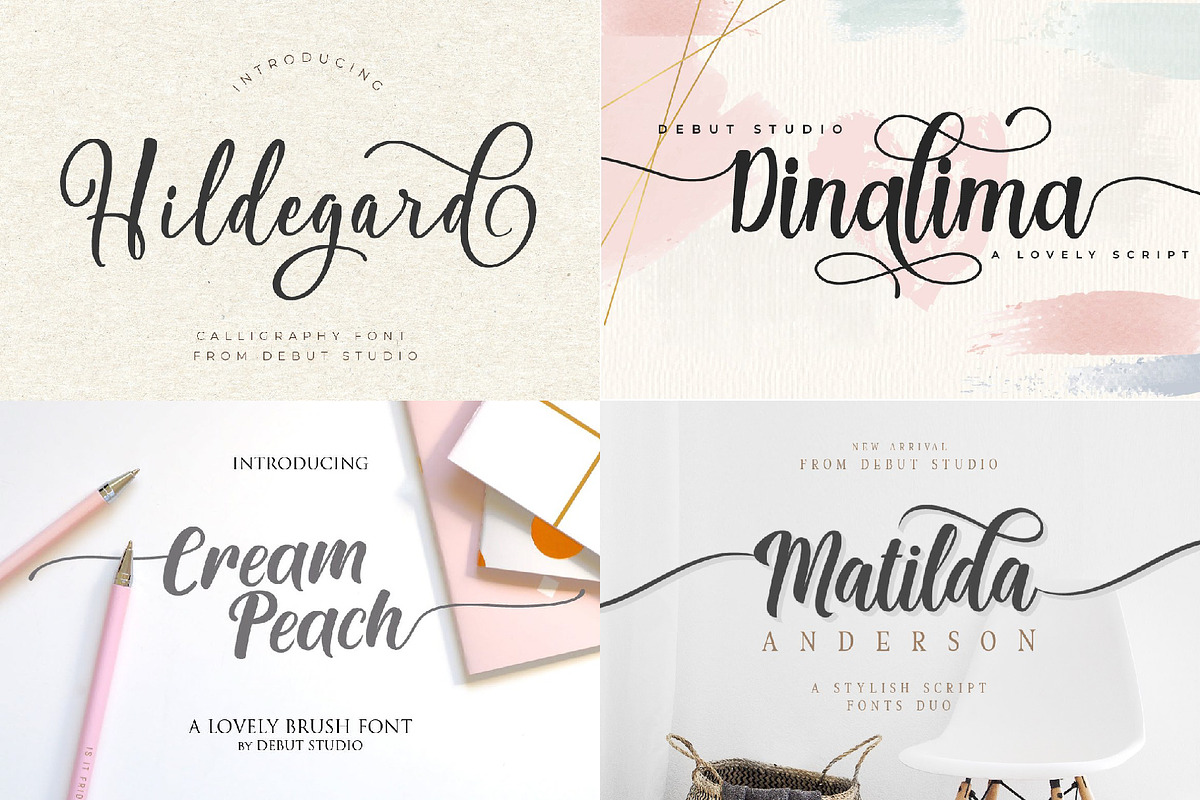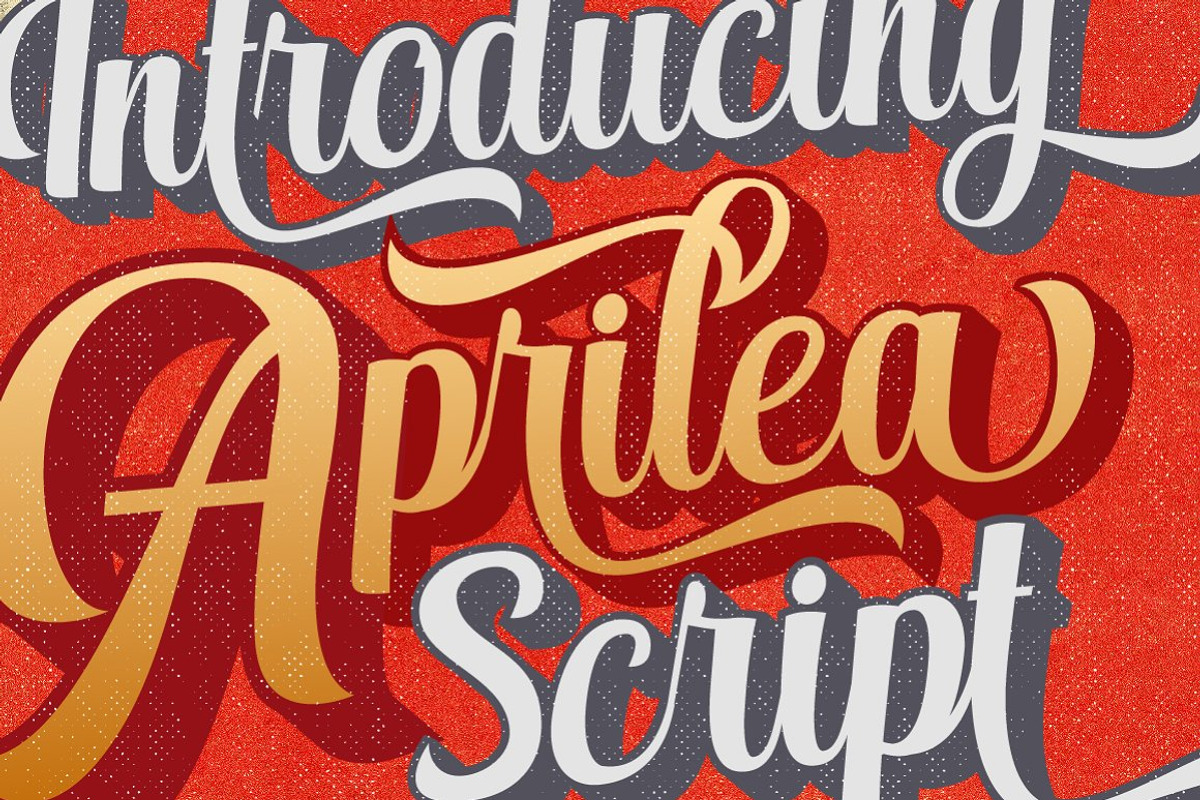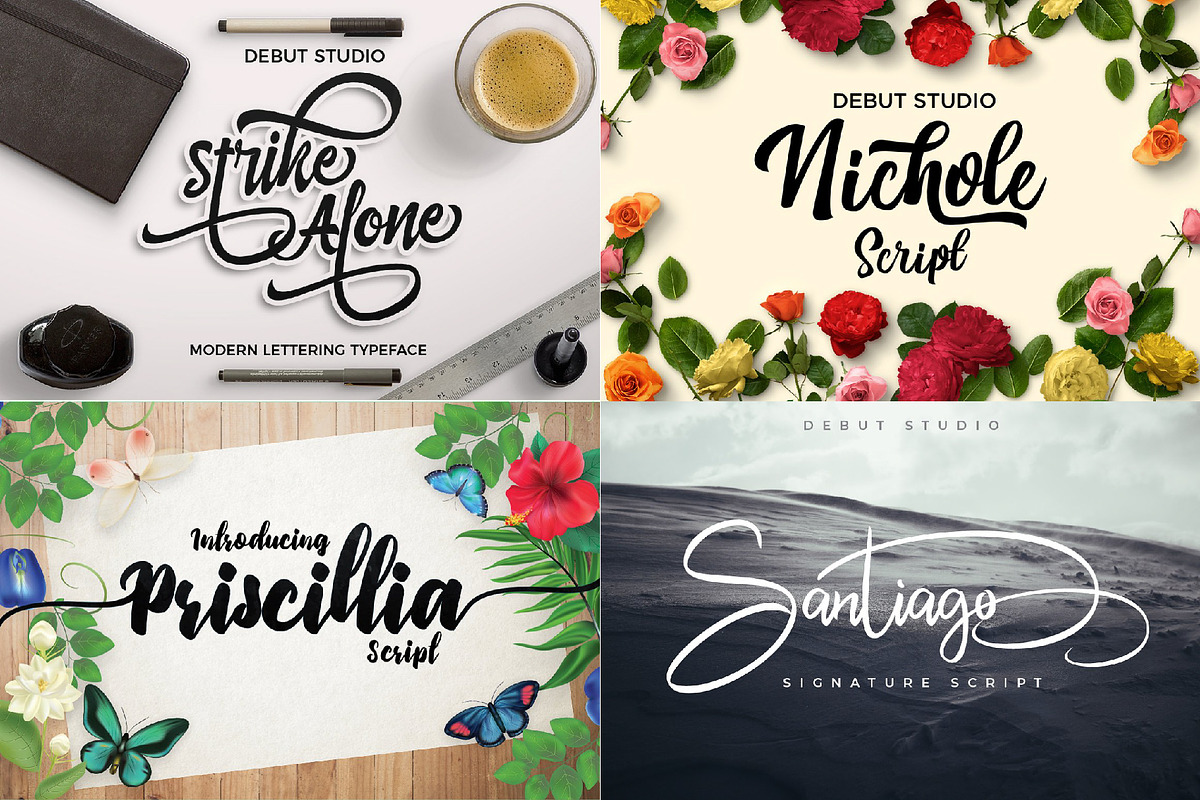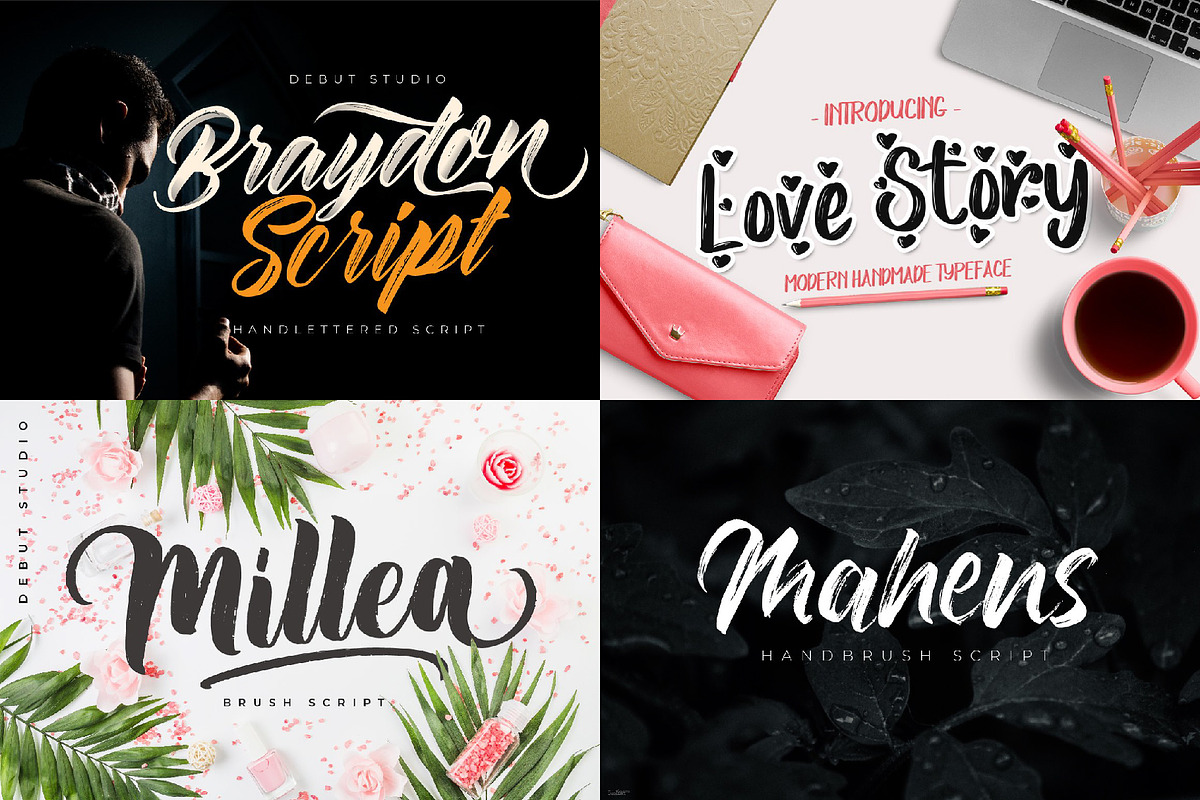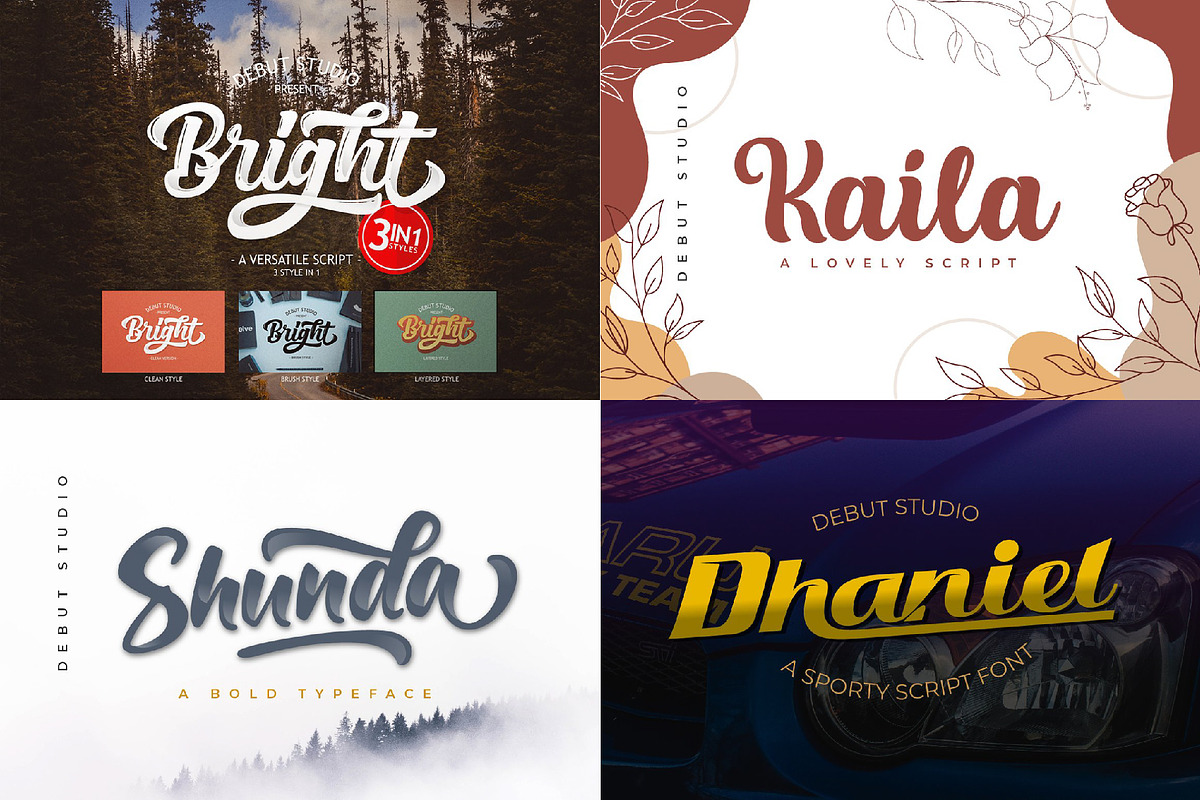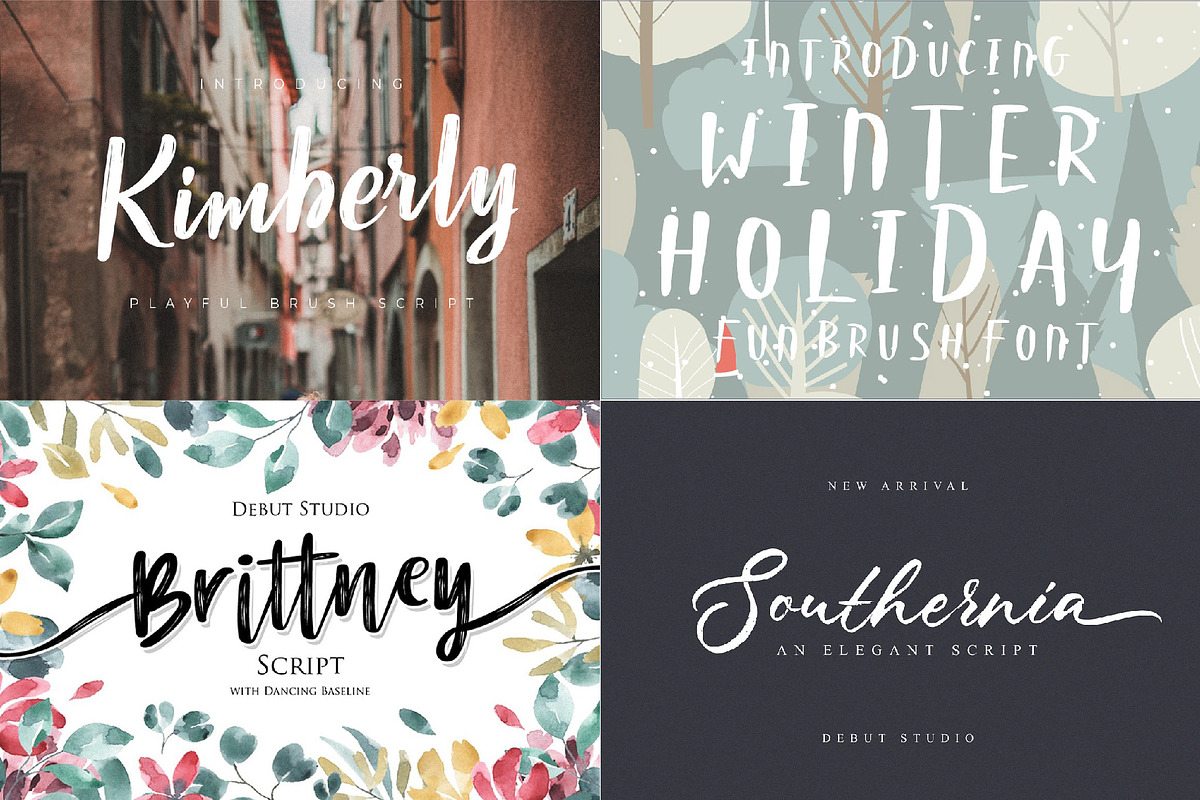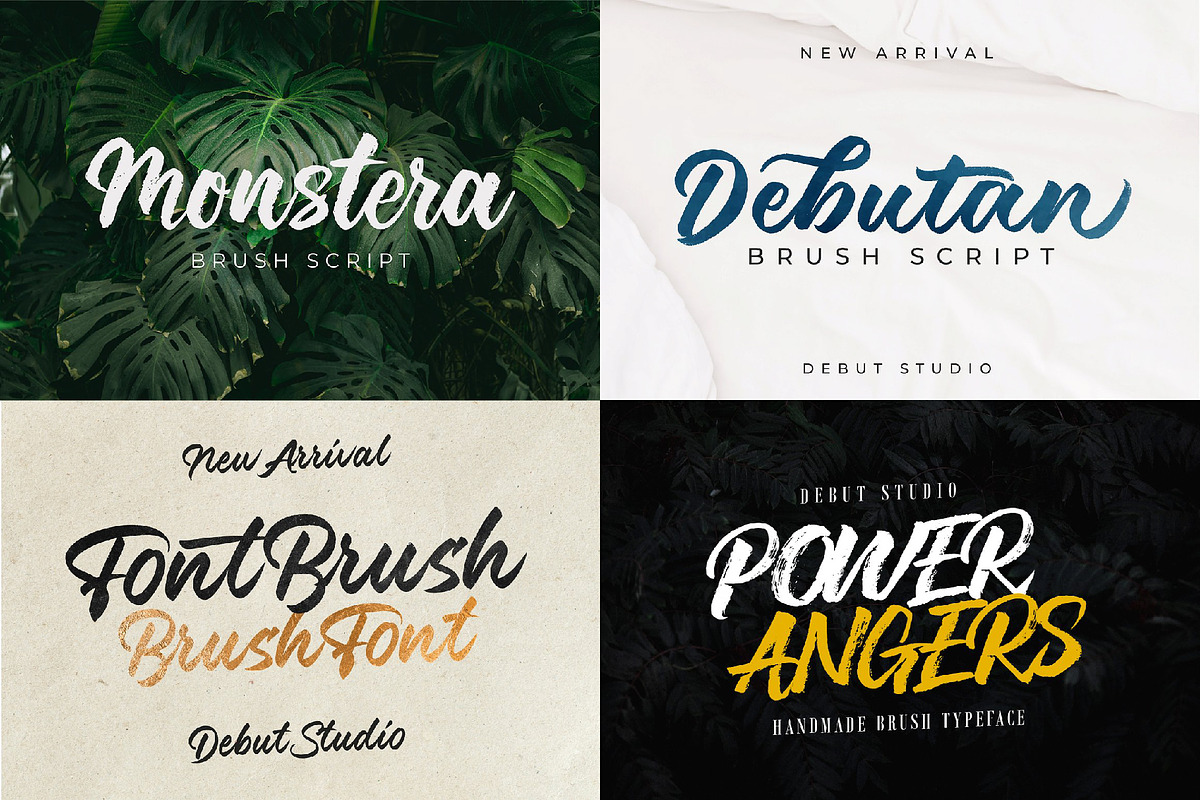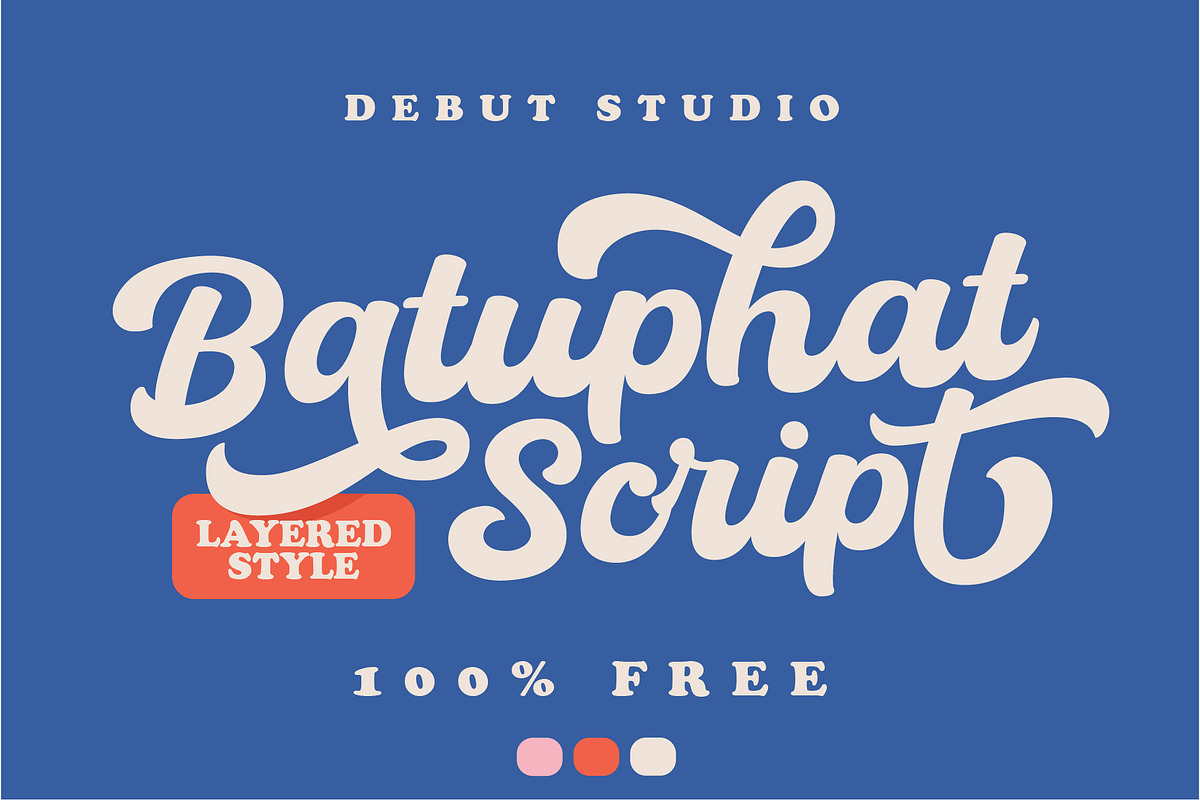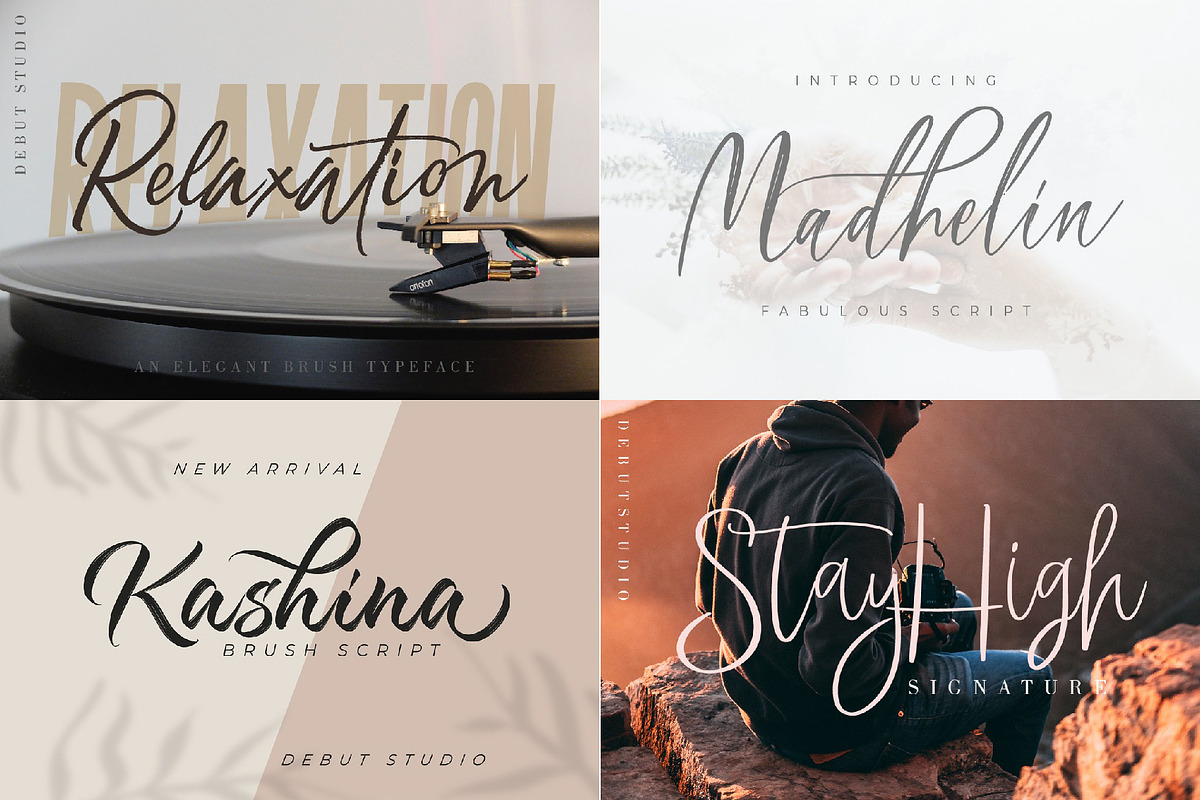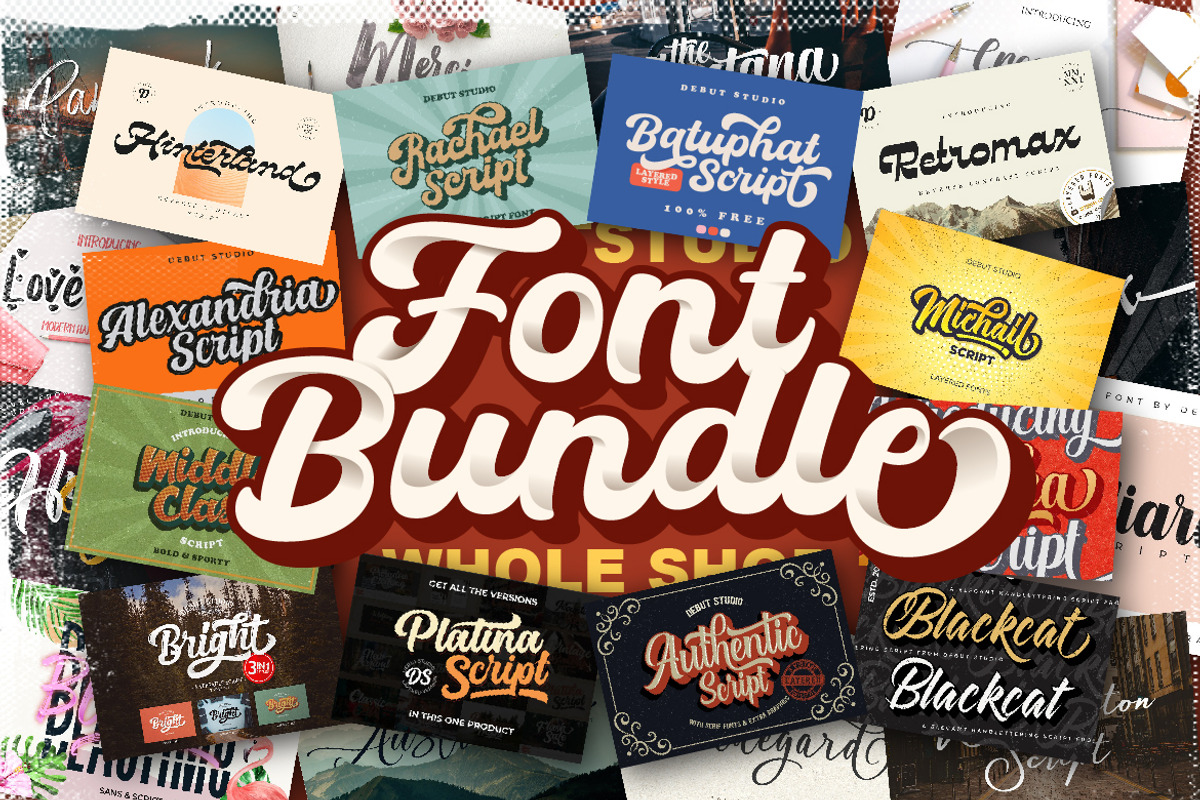
WHOLE SHOP DEBUT STUDIO FONT BUNDLES
Introducing THE WHOLE SHOP DEBUT STUDIO FONT BUNDLE, this font is special for end year sale 2021, This bundle is the contains 12 layered type fonts with the best selling, one of which is Alexandria Script (https://crmrkt.com/oOQAjj), See what they have to say about our product below :